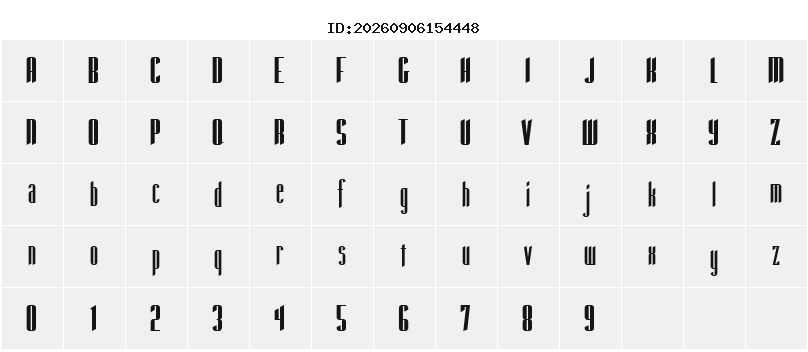
• Font Name: Taber
• Font Style: Block
• Full Font Name: Taber Block
About Taber.ttf
Taber.ttf is a modern, elegant sans-serif font designed for ultimate readability and visual harmony. Perfect for branding, headlines, web design, and print materials.